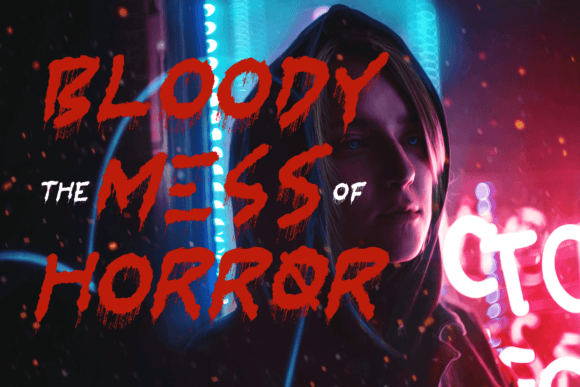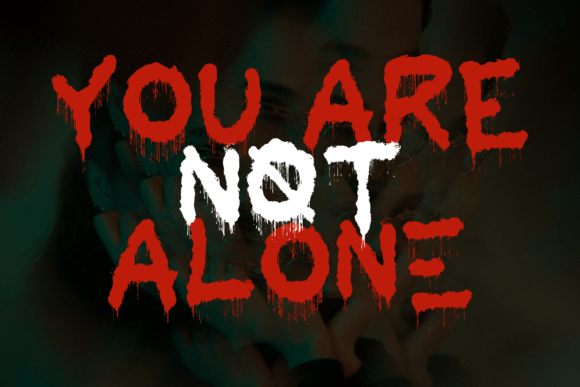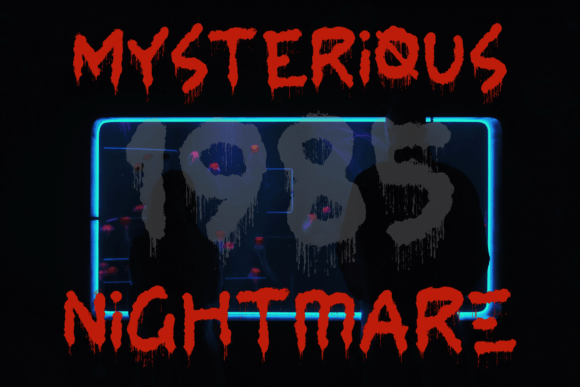
Introduction to Mistery Backbone Font
Have you ever been working on a creative project, pouring your heart and soul into it, and suddenly, you can’t quite capture the essence of the atmosphere you’re trying to convey? It’s a feeling we’ve all been there, staring at a blank canvas, wondering what’s missing. For designers, finding the perfect font can be the key to unlocking that elusive vibe. Enter the Mistery Backbone Font – a horror font that’s sure to send shivers down the spines of your audience.
This high-quality design resource boasts a transparent background, making it perfect for logos, branding projects, and even product packaging. With its free download option, you can experiment with the Mistery Backbone Font without breaking the bank. Whether you’re working on a spooky poster or a mysterious novel cover, this font is sure to add an air of mystery and intrigue to your creative project.
Key Features of Mistery Backbone Font
- Unique, hand-drawn design perfect for creative projects and adding a touch of elegance to any design resource.
- High-quality font with a transparent background, ideal for use on any background color or image.
Honest Review: Mistery Backbone Font
As a designer, I’m always on the lookout for high-quality design resources to elevate my creative projects. Recently, I stumbled upon the Mistery Backbone Font, and I must say, it’s been a great addition to my design toolkit.
Here’s what works well about this font: ✨ It’s perfect for creating a mysterious and eerie atmosphere in your designs, thanks to its unique and intricate details. ✨ It’s highly versatile and can be used for a wide range of creative projects, from posters and flyers to digital art and even logos. ✨ The font is available for free download, making it an excellent choice for designers on a budget or those who just want to try out a new font without committing to a purchase.
Overall, I’m quite impressed with the Mistery Backbone Font. Its unique design and versatility make it an excellent choice for designers looking to add a touch of mystery to their creative projects. Just be aware of the limitations mentioned above, and you’ll be good to go!
- Highly versatile and suitable for various creative projects
- Perfect for creating a mysterious and eerie atmosphere
- Challenging to read in certain situations
- Only comes in a single weight
Common Use Cases for Mistery Backbone Font
The Mistery Backbone Font is ideal for a variety of creative projects, including branding, packaging, and digital art. Its unique design and high quality make it a valuable addition to any design resource collection.
Is the Mistery Backbone Font suitable for high-resolution designs?
Yes, the Mistery Backbone Font is designed to be high-quality and scalable, making it suitable for use in high-resolution designs, such as those intended for print or digital displays. The font’s crisp, clean lines and smooth curves ensure that it will look great at any size.